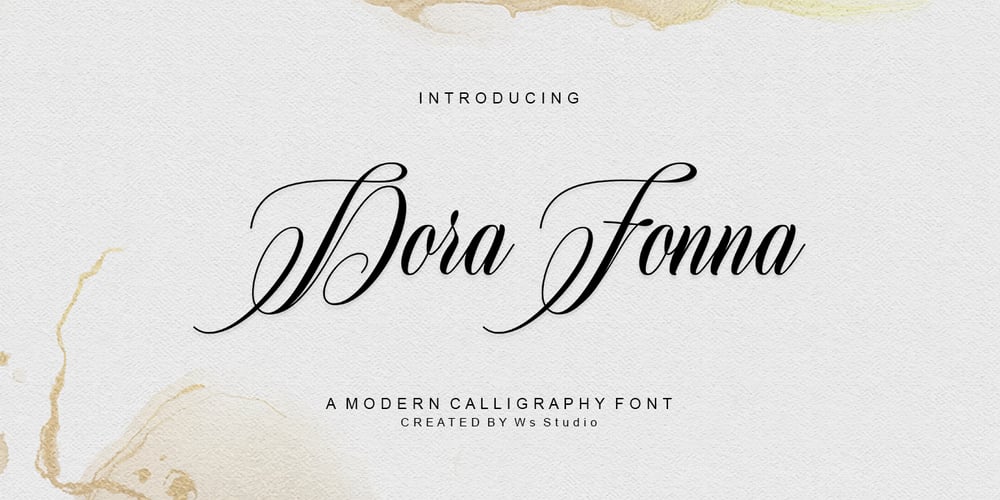
Dora Fonna Font Family was designed by Wais Alqarni and published by Ws Studio. Dora Fonna contains 1 styles and family package options. Dora Fonna is a new modern script font with an irregular baseline. Trendy and feminine style. Dora Fonna looks beautiful for branding, logo, wedding supplies, greeting cards, fashion, lookbooks, marketing promotions. Includes initial and terminal letters, alternatives, ligatures and multiple language support.Dora Fonna also has a strong neoclassical serif typeface with high contrast, cool style and look, unique with alternative fonts, Ligatures, and multilingual support.